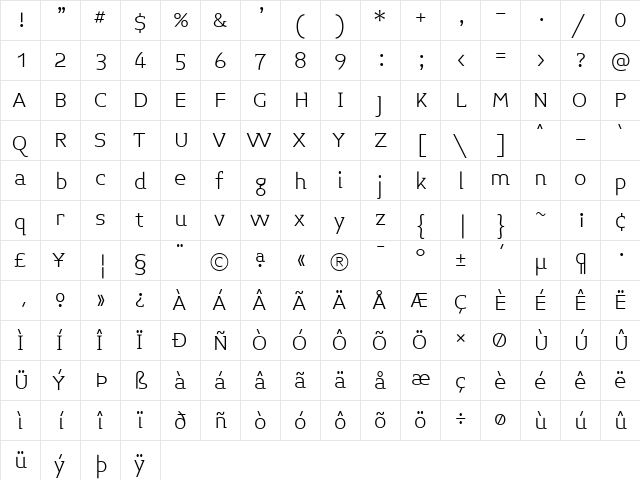
Midiet Serif Light
Design Context for Midiet Typeface
Midiet brings classic typographic sensibility to the table — its serifs and measured letterforms reflect centuries of print heritage. Its slender proportions lend an understated elegance to any composition.
Pro Tip: Set Midiet at slightly larger body copy sizes than you would a regular-weight serif to compensate for its delicate stroke contrast.